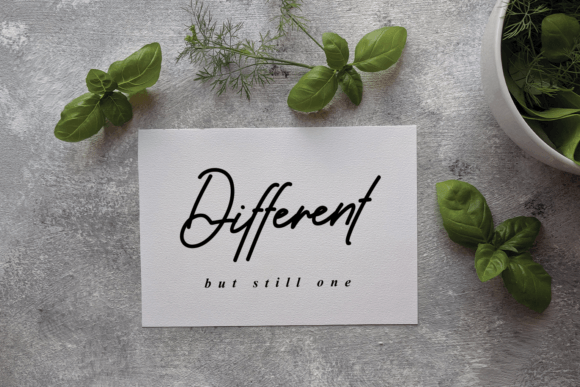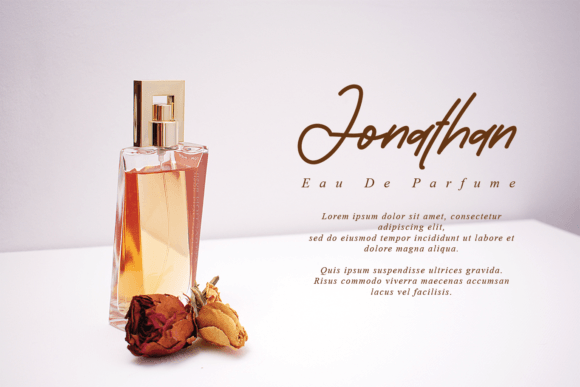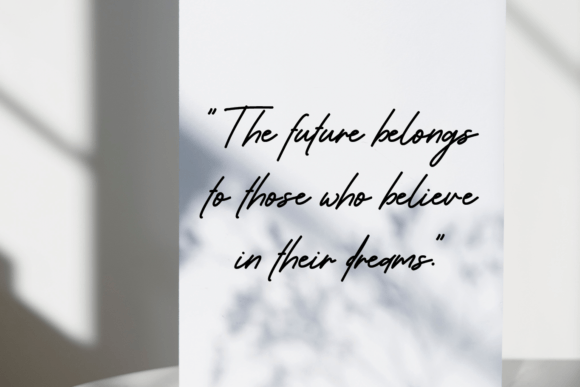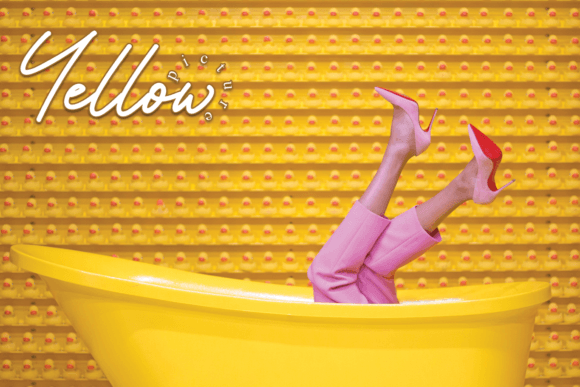
Introducing Handwritten: A Romantic and Sweet Calligraphy Script Font
Are you looking for a font that adds a touch of elegance and sophistication to your designs? Look no further than Handwritten, a beautiful calligraphy script font that features characters that seem to dance along the baseline. With its luxurious and romantic feel, Handwritten is perfect for designers and crafters who want to add a special spark to their creative projects.
What is Handwritten Font?
Handwritten is a type of script font that mimics the look of handwritten calligraphy. It features flowing lines, intricate connections, and a sense of movement that gives it a dynamic and playful feel. The font is designed to look like it was written with a pen or a brush, giving it a personal and human touch that is hard to replicate with digital fonts.
Key Features of Handwritten Font
- Romantic and Sweet: Handwritten has a romantic and sweet feel that makes it perfect for designs that require a touch of elegance and sophistication.
- Dancing Characters: The characters in Handwritten seem to dance along the baseline, giving the font a sense of movement and energy.
- Luxurious: Handwritten has a luxurious feel that makes it perfect for high-end designs, branding, and marketing materials.
- Versatile: Handwritten can be used for a variety of design projects, from wedding invitations and greeting cards to logos and branding materials.
How to Use Handwritten Font in Your Designs
Handwritten is a versatile font that can be used in a variety of design projects. Here are some ideas to get you started:
- Wedding Invitations: Use Handwritten to create beautiful and elegant wedding invitations that set the tone for the big day.
- Greeting Cards: Add a personal touch to your greeting cards with Handwritten, perfect for birthdays, anniversaries, and holidays.
- Logos and Branding: Use Handwritten to create a luxurious and sophisticated brand identity that stands out from the crowd.
- Social Media Graphics: Add a touch of elegance to your social media graphics with Handwritten, perfect for Instagram, Facebook, and Twitter.
Benefits of Using Handwritten Font
There are many benefits to using Handwritten in your designs. Here are a few:
- Unique and Creative: Handwritten is a unique and creative font that will set your designs apart from the crowd.
- Emotional Connection: The romantic and sweet feel of Handwritten creates an emotional connection with your audience, making your designs more relatable and engaging.
- High-End Look: Handwritten has a luxurious feel that gives your designs a high-end look and feel.
Tips for Using Handwritten Font Effectively
Here are some tips for using Handwritten effectively in your designs:
- Use it Sparingly: Use Handwritten sparingly to add a touch of elegance to your designs. Overusing the font can make your designs look cluttered and overwhelming.
- Pair it with Other Fonts: Pair Handwritten with other fonts to create a unique and creative contrast that adds visual interest to your designs.
- Experiment with Colors: Experiment with different colors to find the perfect combination that complements Handwritten and enhances your designs.
Handwritten is a beautiful and elegant calligraphy script font that adds a touch of luxury and sophistication to any design project. With its romantic and sweet feel, dancing characters, and versatile design, Handwritten is perfect for designers and crafters who want to create unique and creative designs that stand out from the crowd. Whether you’re designing wedding invitations, greeting cards, logos, or social media graphics, Handwritten is the perfect font to add a special spark to your creative projects.